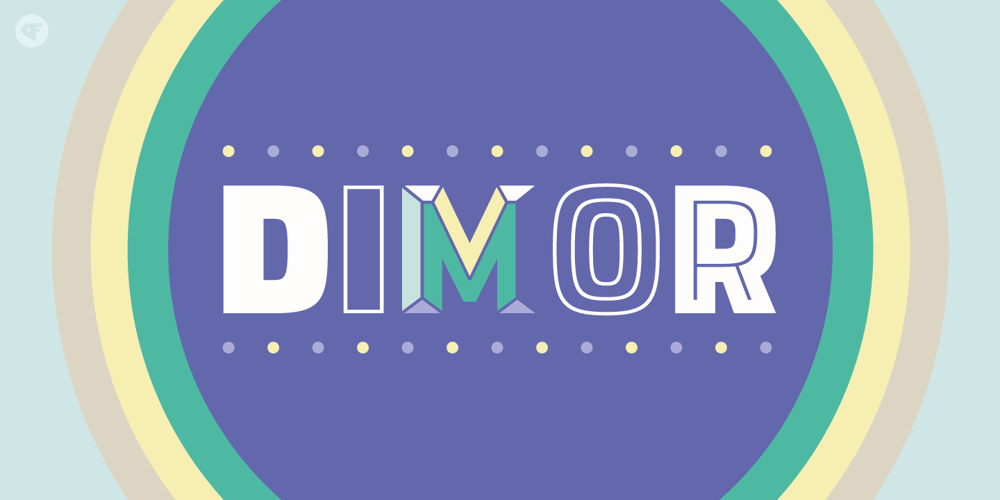
Dimor
Dimor font
Dimor Font Family was designed by Paul Chen and published by Nine Font. Dimor contains 6 styles and family package options. Dimor is a modern display type family with 6 styles. Specially designed for headlines and short sentences. We hope this will contribute to your impressive and distinctive title